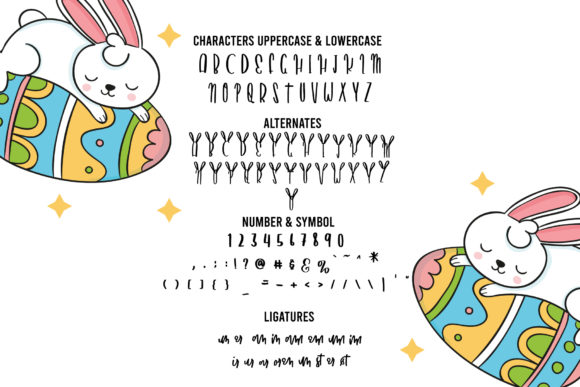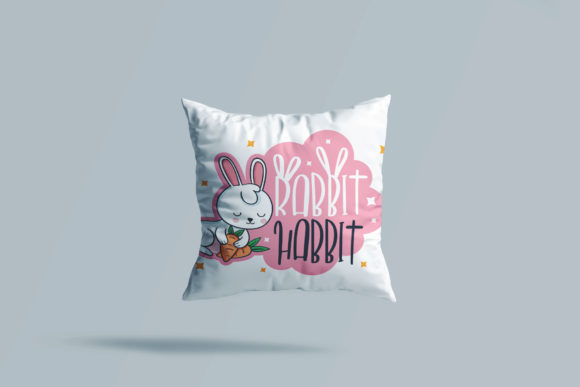
Introduction to Rabbit Habit Font
Rabbit Habit is a cute and charming display font.
| 👤 Author | goodigital |
Whimsical and a bit quirky, this font will brighten up each of your designs Add it confidently to your projects, and you will love the results.
Key Features of Rabbit Habit Font
Why Choose Rabbit Habit Font?